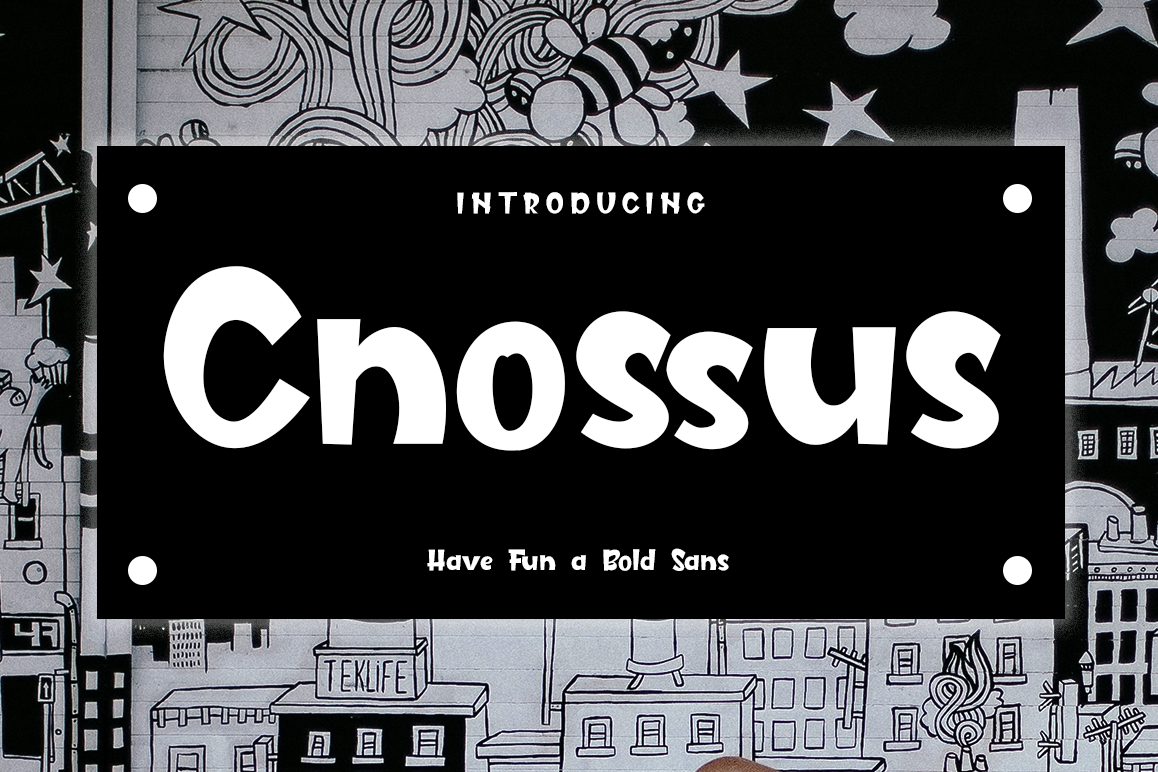
Cnossus Powerful Bold Fun
Cnossus
Say Hello to "Cnossus" Bold Funnies  Font!
Cnossus was built with OpenType features, numbers, punctuation, ligatures and it also supports other languages :)
Cnossus is very support to build your brand such as : T-shirt, Logo, Poster, Packaging, Advertising and anything.